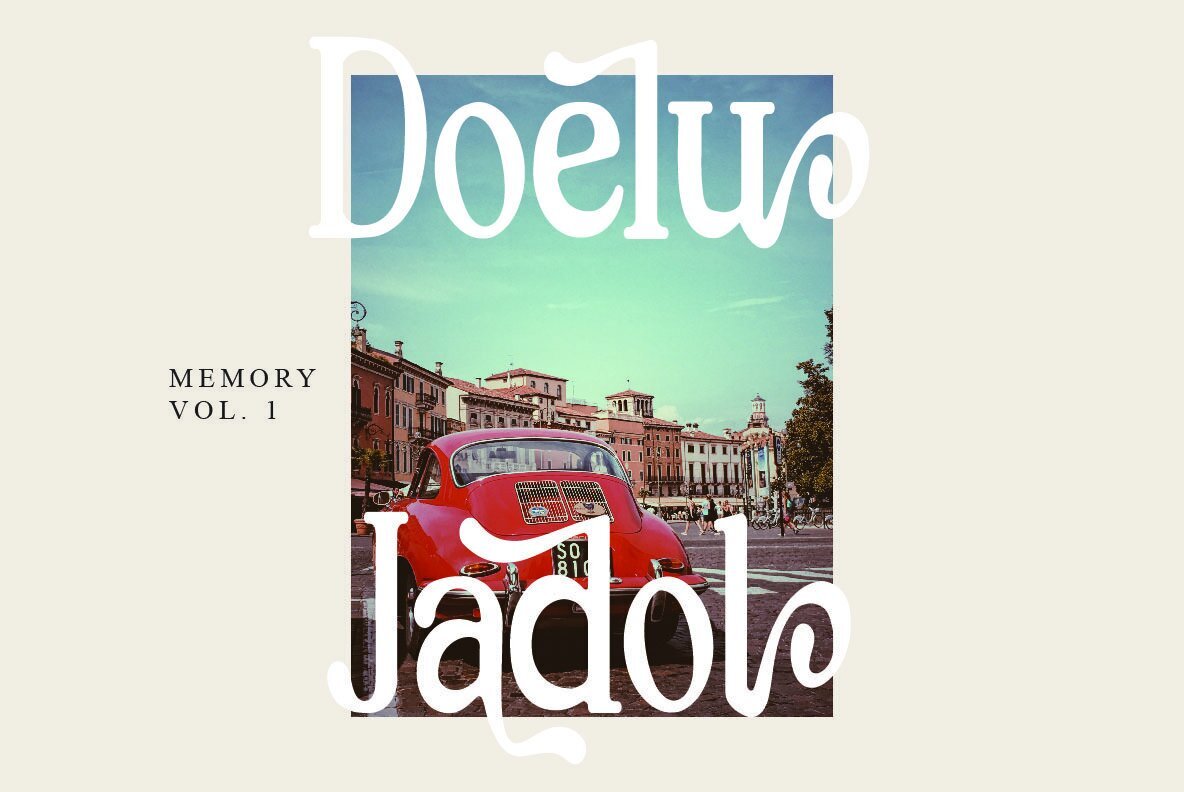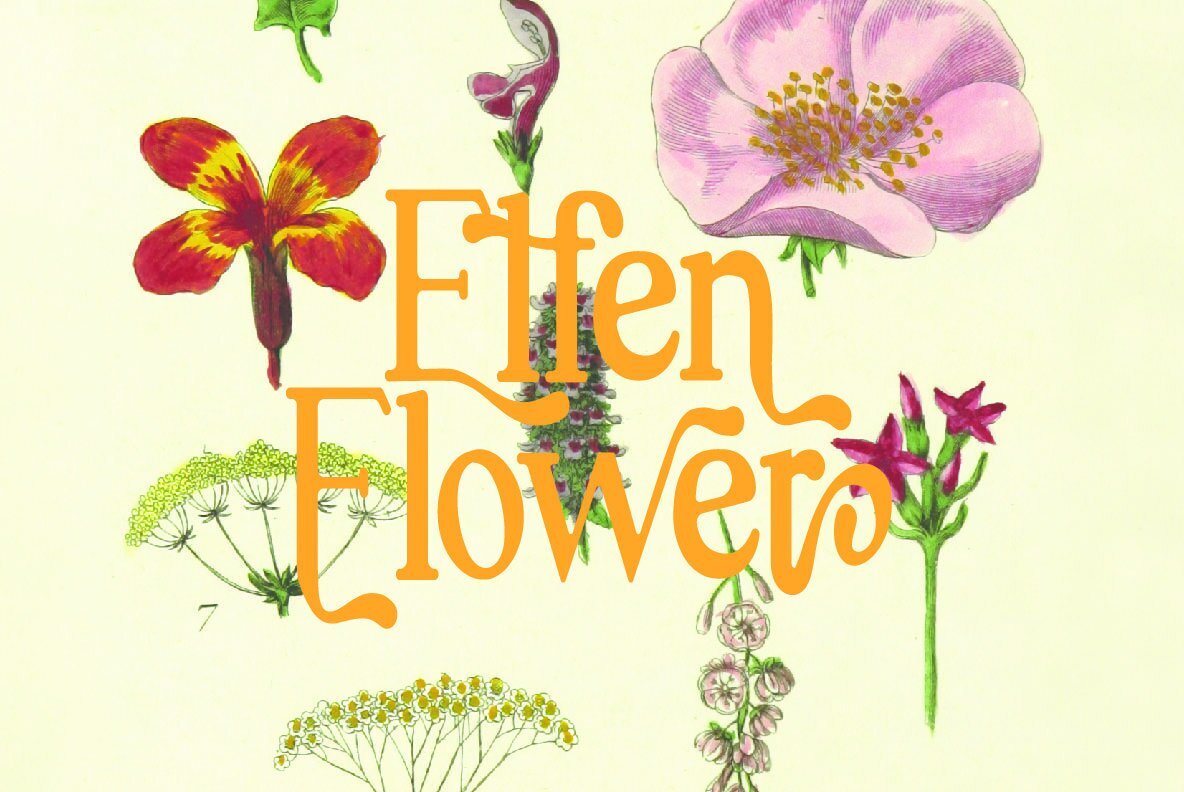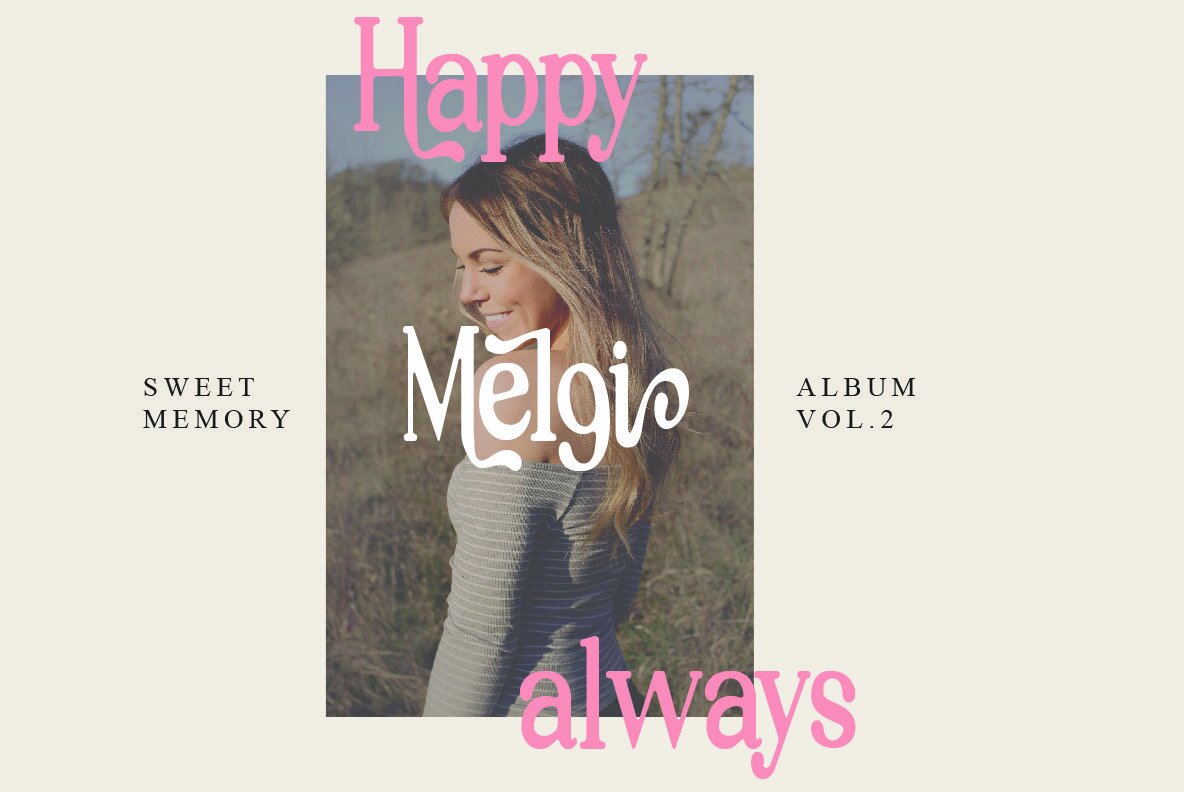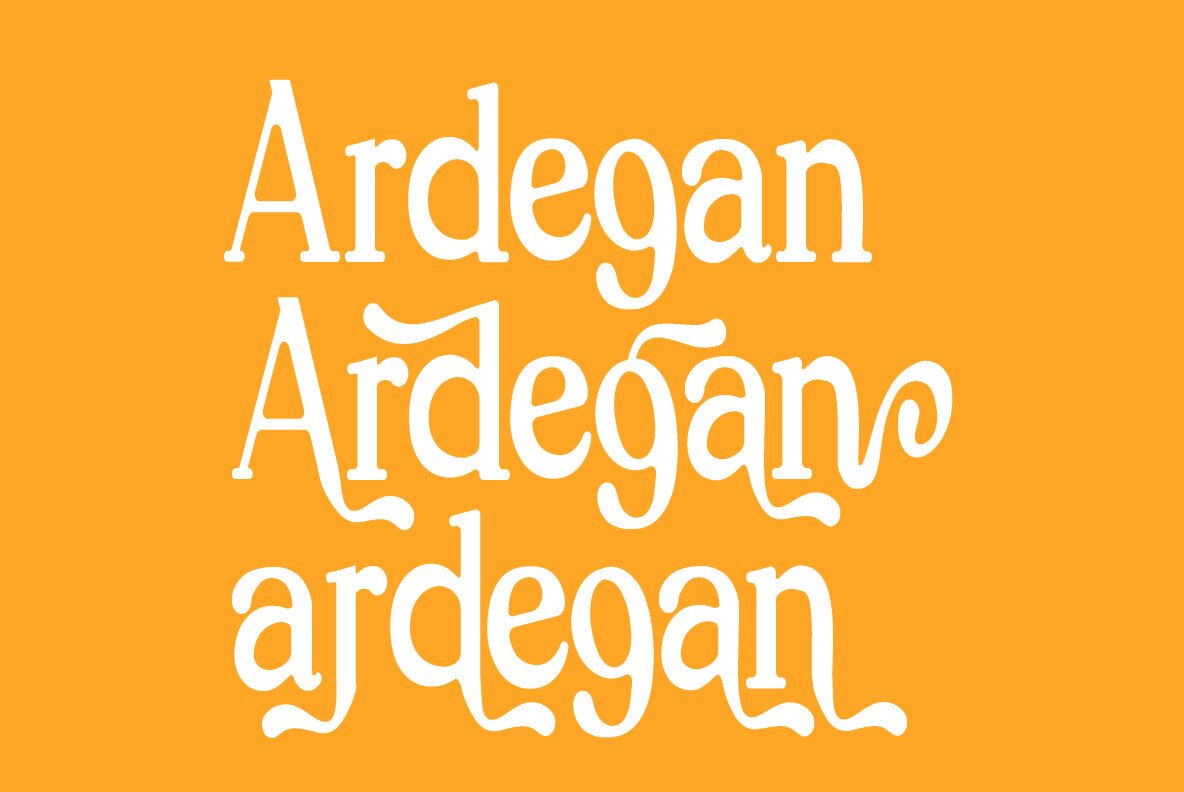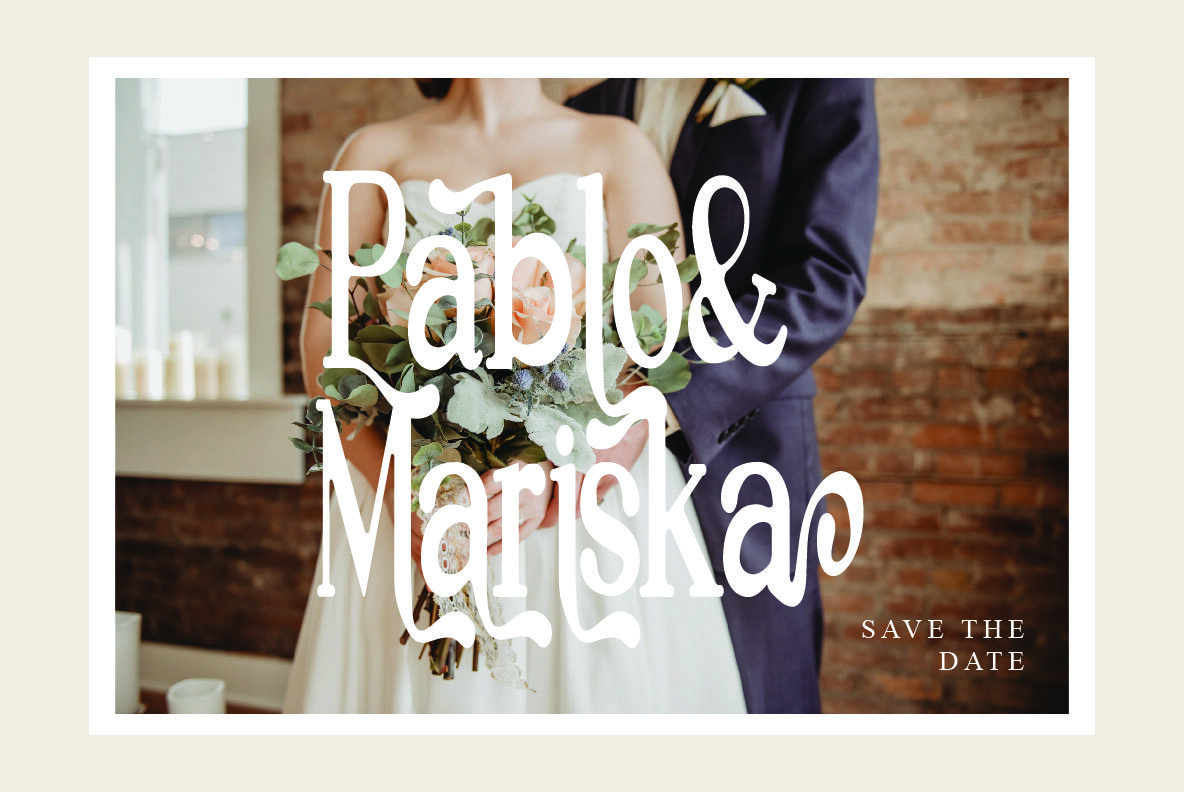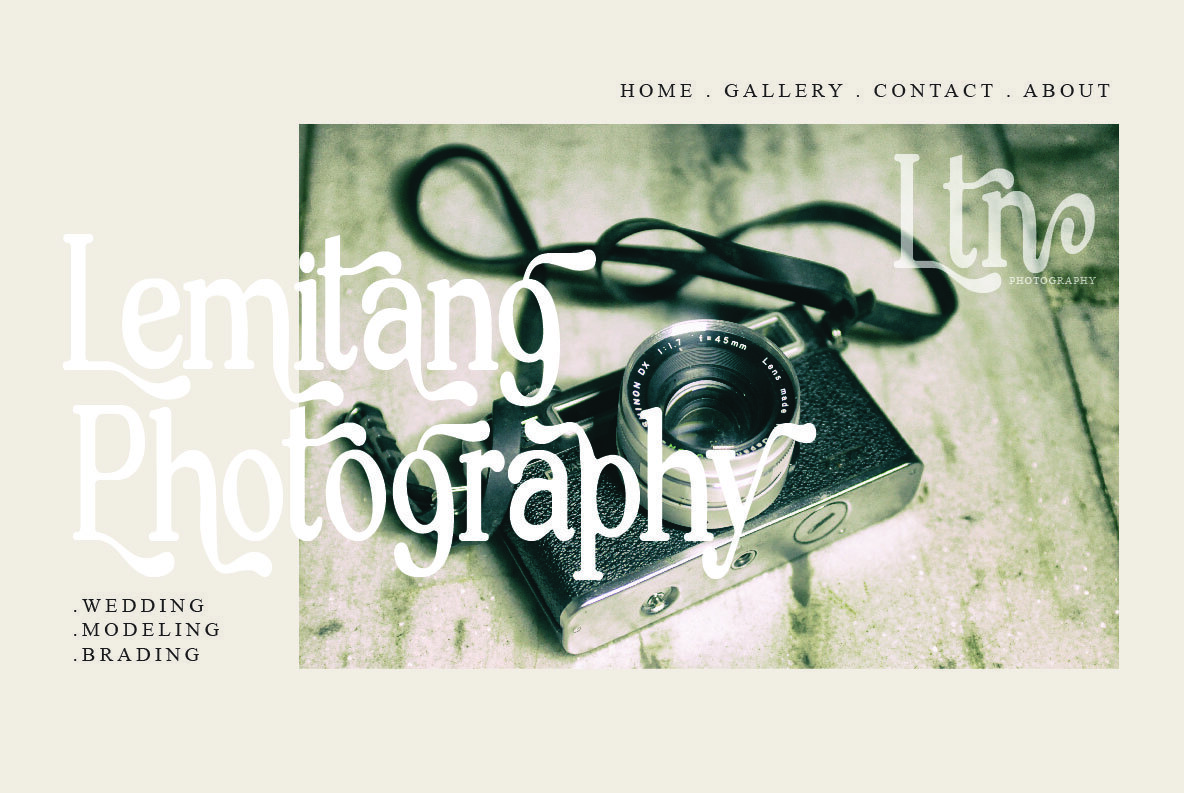
Ardegan: A Classic Serif for Elegant Designs
Ardegan is a vintage-inspired serif font that commands attention with its elegant styling. Ideal for a range of applications, this font enhances wedding invitations, greeting cards, logos, and more with a touch of classic sophistication.
Exceptional Features
• Versatile Applications – Perfect for fashion, photography, and creative projects.
• Timeless Style – Adds a vintage flair to modern design needs.